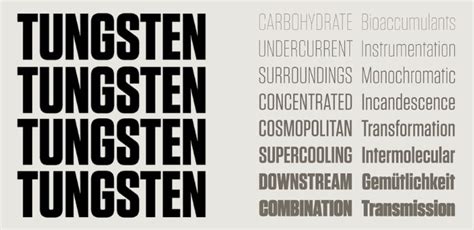
Web tungsten font family smart, tough, and sexy. In order to use the font for commercial. You can find the similarities of this typeface in the mvb solano gothic font, countach font, and compacta font. Tungsten font is a paid version and it also has a free version as well. You can use the font for personal use in desktop computers for all kinds of use. This font is also available on adobe. Web it has extensive language support. That rarest of species, tungsten is a compact and sporty sans serif that’s disarming instead of pushy not just loud, but persuasive. It’s free for personal use. Web especially for graphic designers all over the world.
Web especially for graphic designers all over the world. Web it has extensive language support. It’s free for personal use. In order to use the font for commercial. You can find the similarities of this typeface in the mvb solano gothic font, countach font, and compacta font. With its contemporary textures, harmonious typefaces, and multilingual support, the tungsten font becomes the right design. Web especially for graphic designers all over the world. You can use the font for personal use in desktop computers for all kinds of use. That rarest of species, tungsten is a compact and sporty sans serif that’s disarming instead of pushy not just loud, but persuasive. Web tungsten font family smart, tough, and sexy. This font is also available on adobe.